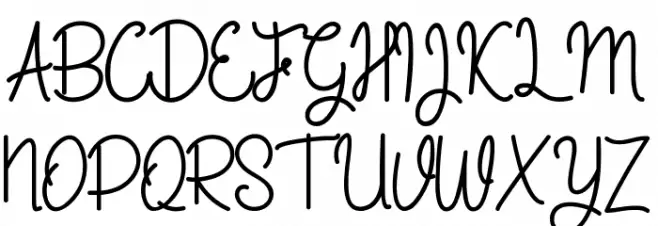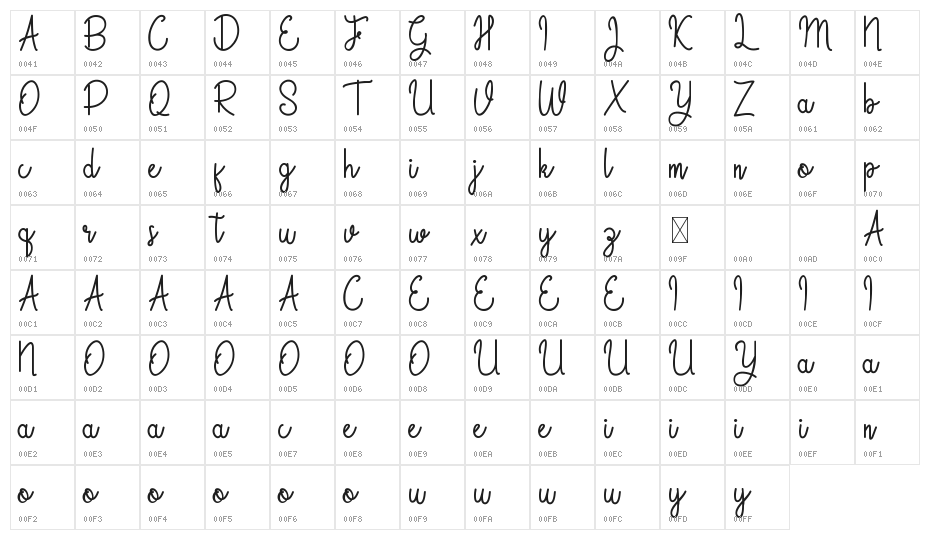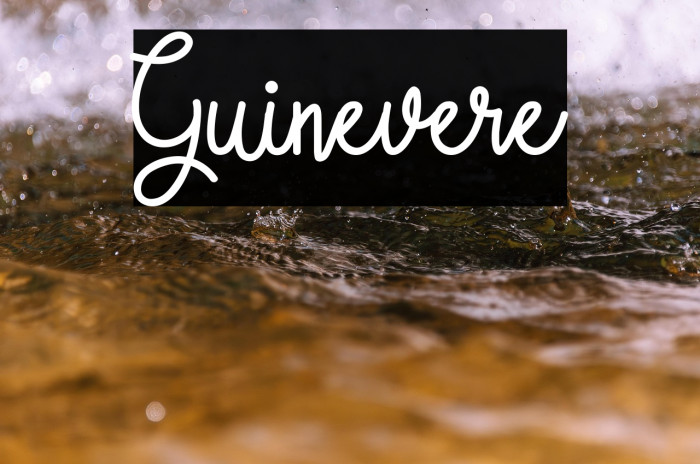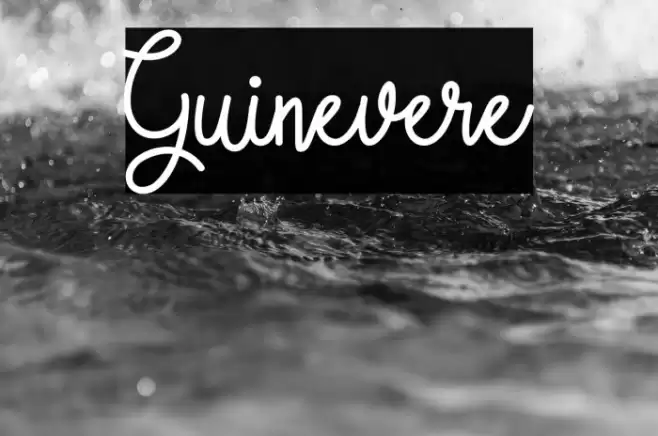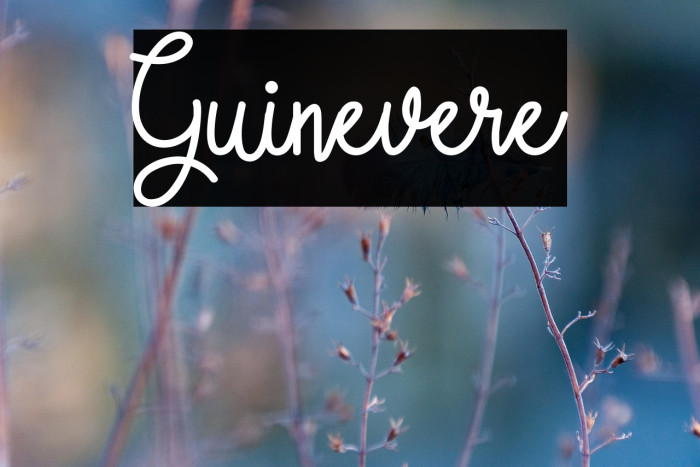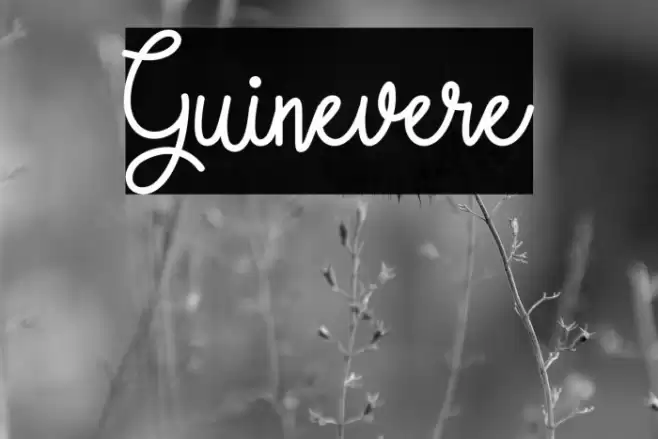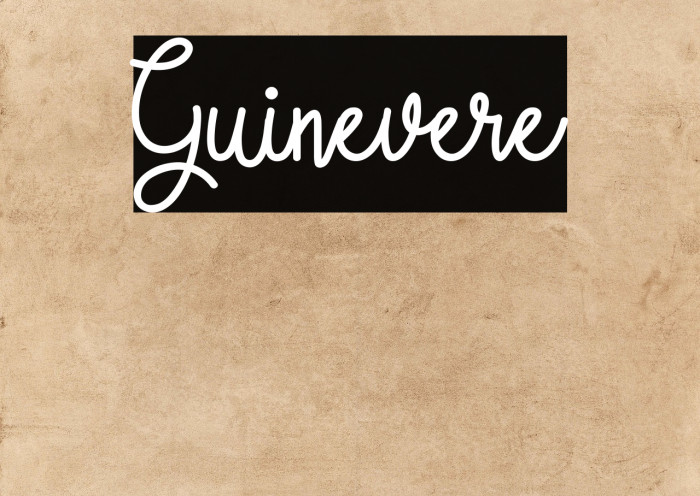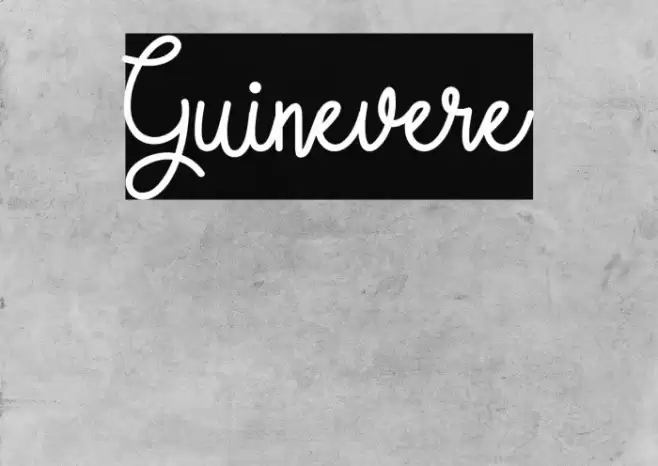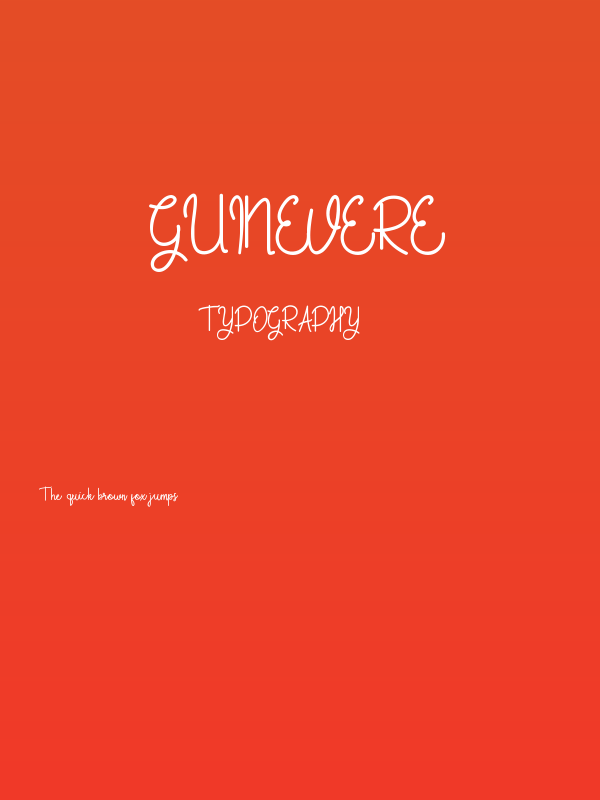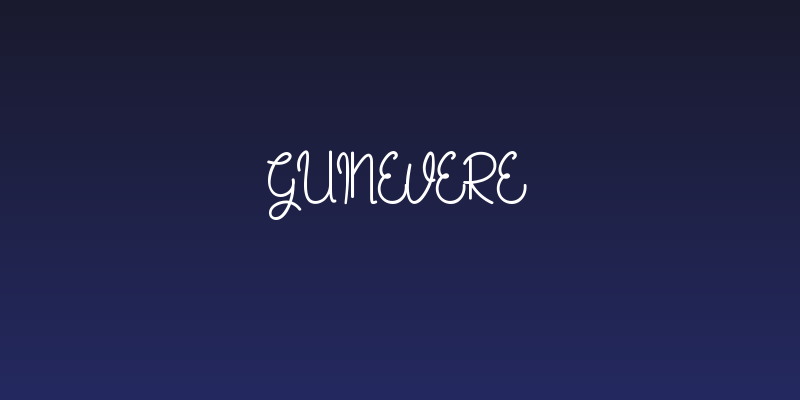
Guinevere Font
Guinevere Description
This font features a whimsical, handwritten style that exudes a playful and casual vibe. The characters are crafted with a smooth, flowing script that mimics natural handwriting, giving it a personal touch. The uppercase and lowercase letters are distinct yet harmoniously blend together, creating a cohesive look. The font maintains a consistent stroke width, contributing to its legibility and charm. Its unique character shapes and loops add a touch of elegance and creativity, making it suitable for a variety of design projects.
| Overall Style | Casual, Whimsical |
| Proposed Projects | Ideal for greeting cards, invitations, personal branding, and creative projects that require a personal touch. |